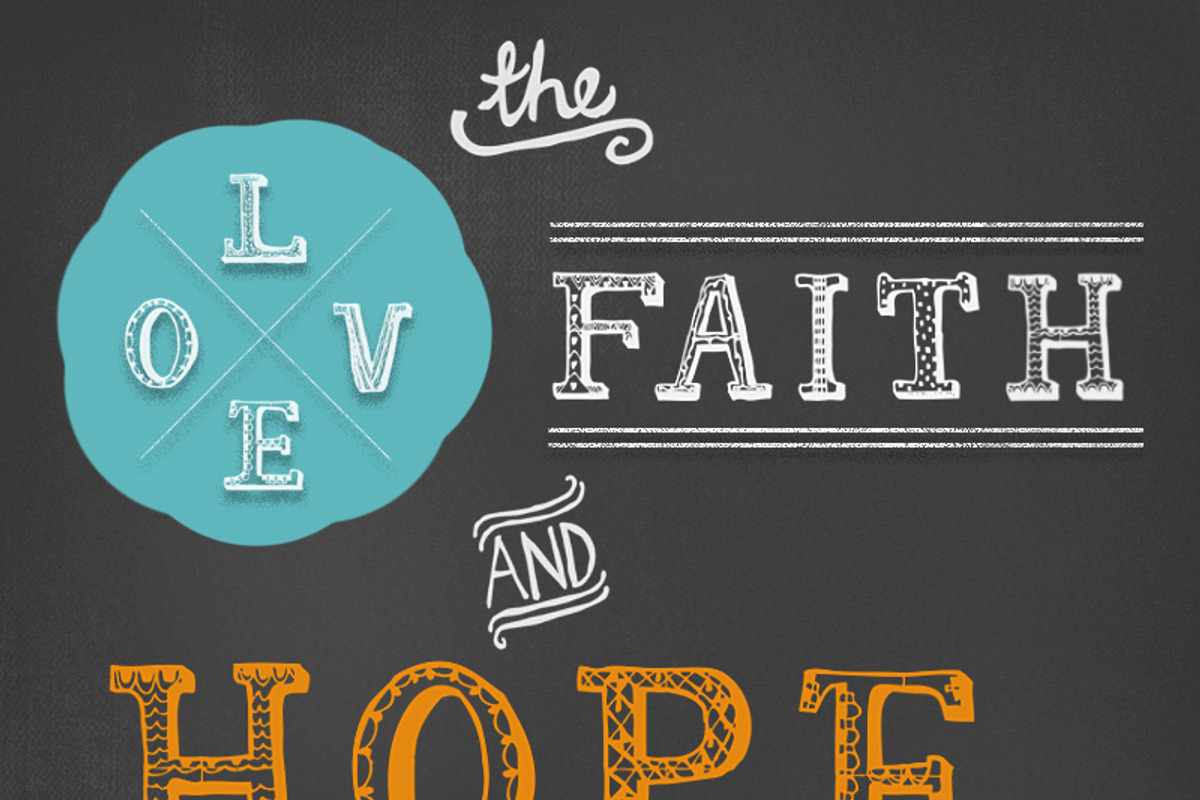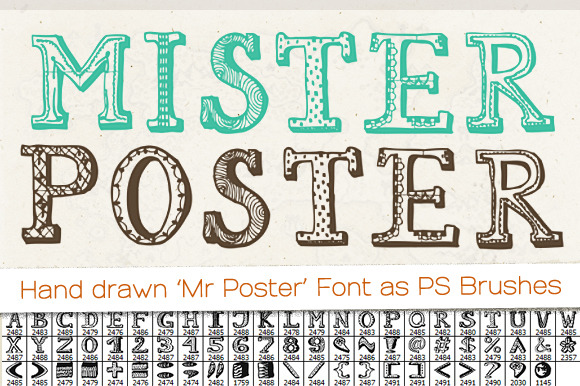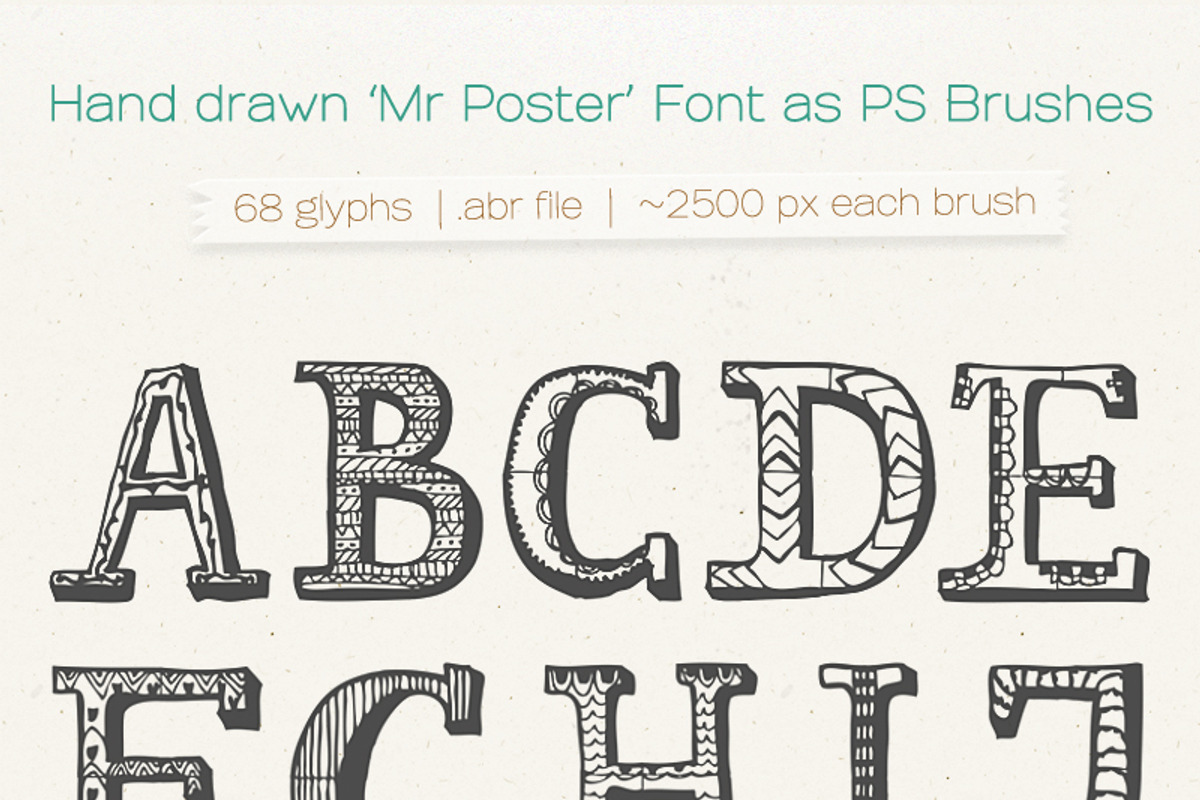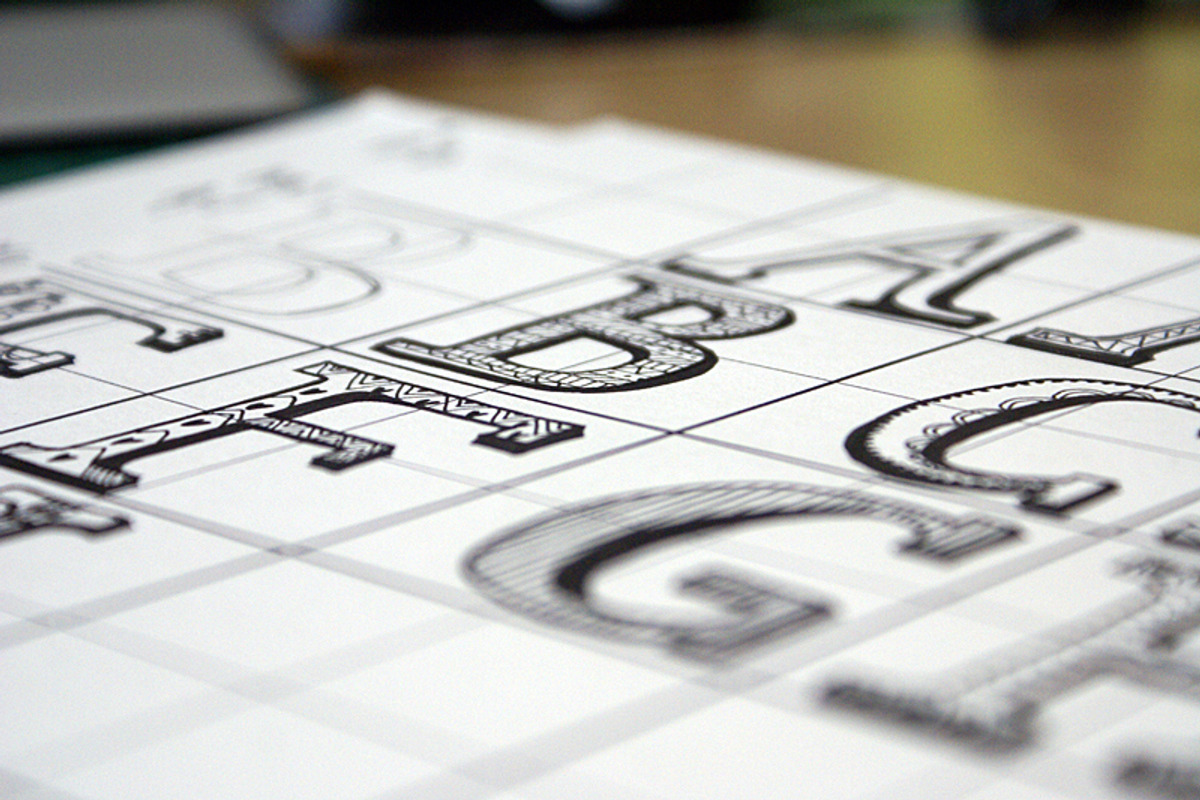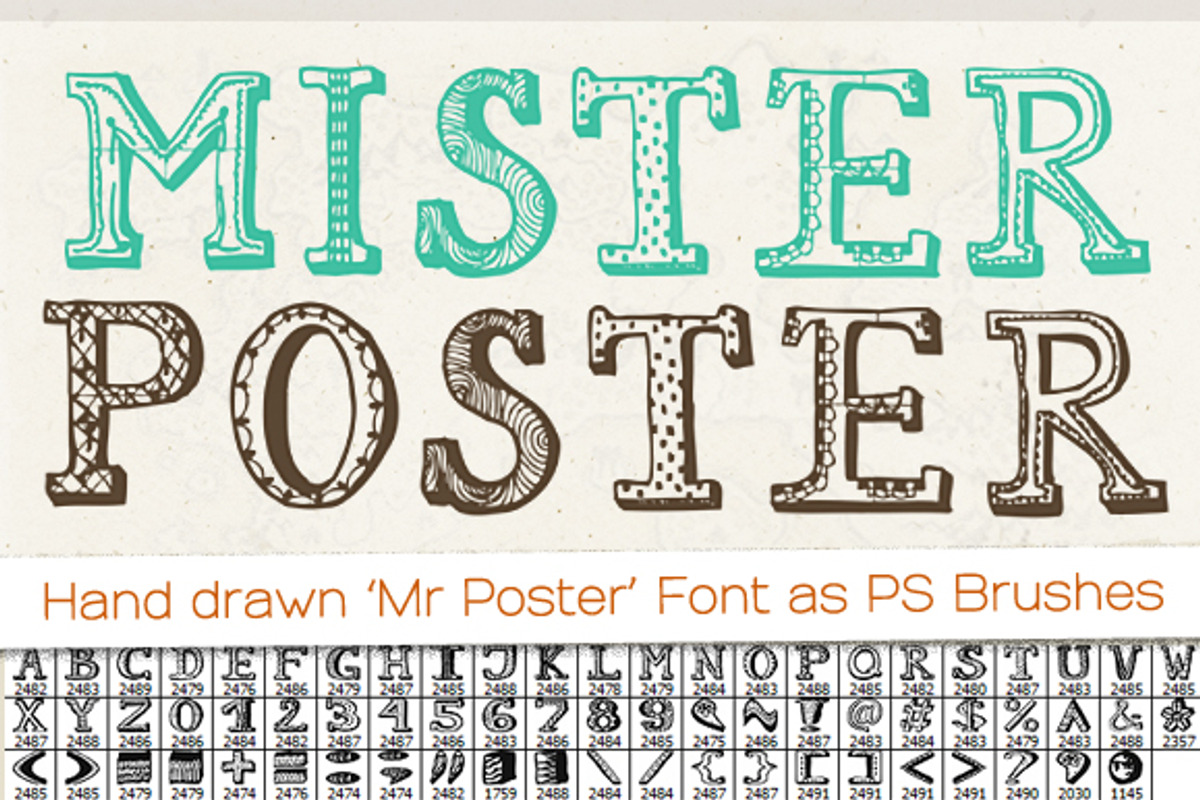
Hand drawn 'Mr Poster' Font Brushes
'Mr Poster' Font Brushes is a unique set of 68 hand drawn letters and signs as Photoshop brushes (font available soon). Each brush is about 2500 pixels large so you can use it for print design also! For a full list of glyphs please see the last preview image.
Use any letter in a different way - play with various sizes, colours, rotations thanks to brushes! Get personal and handmade look of your flyer, website, card, poster, ad. Stand out from thousands other designs!